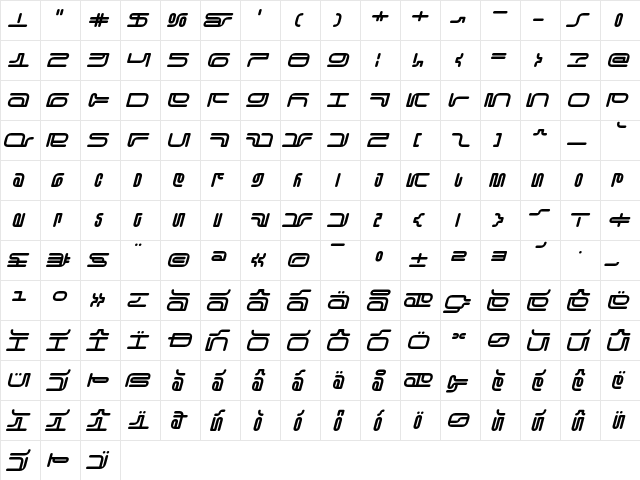
Cascadeur Rnd Italic
| Foundry | NaumType Foundry |
| Designer | Peter Bushuev |
Design Context for Cascadeur Rnd Typeface
Cascadeur Rnd is a composed and adaptable typeface that performs quietly and consistently across a wide range of design contexts. Its italic angle brings a sense of urgency and motion to the letterforms.
Pro Tip: Use Cascadeur Rnd for emphasis, pull quotes, and subheadings where its slanted energy can add rhythm to the layout.